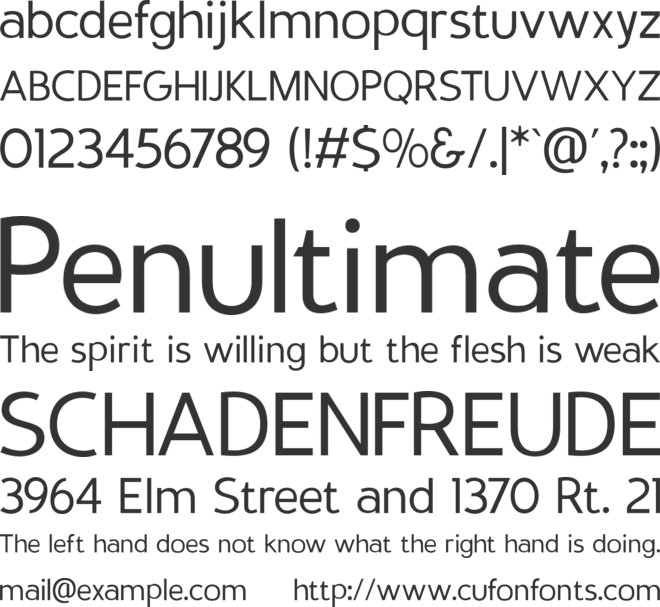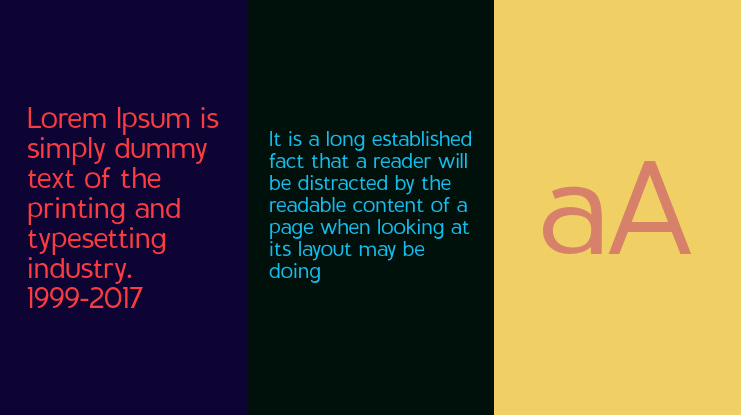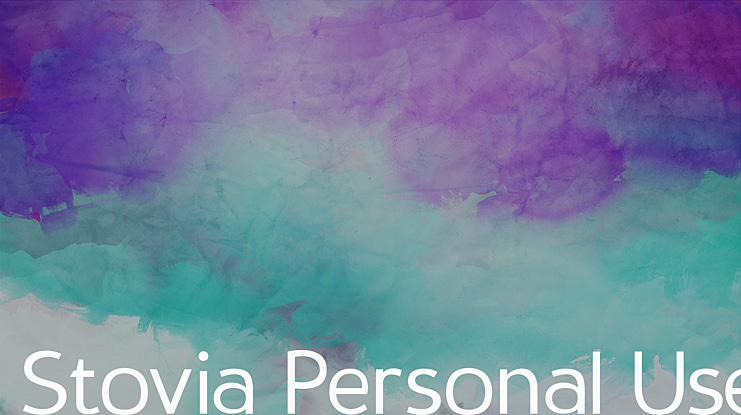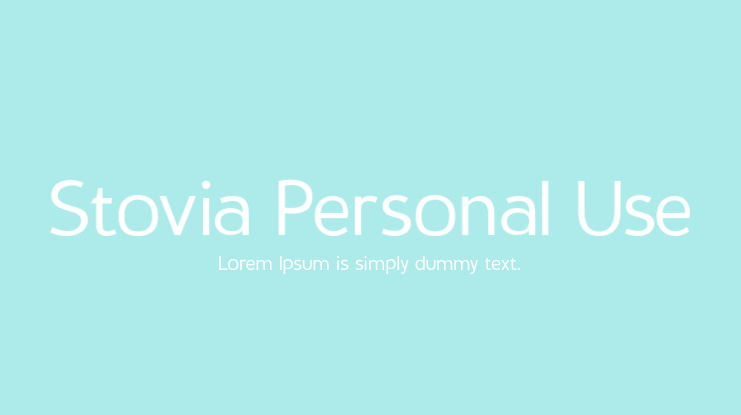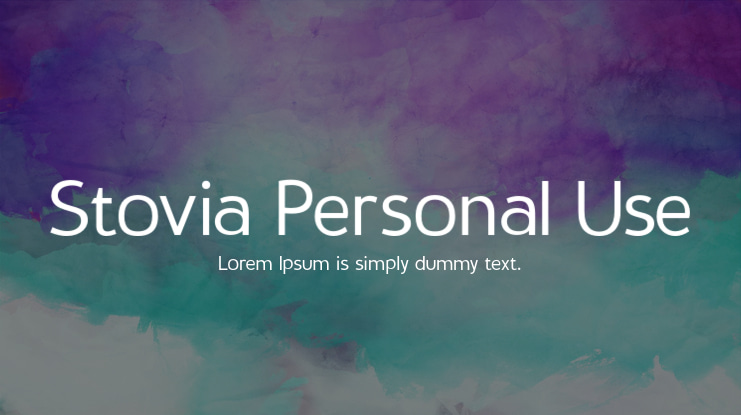
Stovia Personal Use Font Family
Stovia is a typeface with a modern sans serif style, has a clean, modern and elegant character. Suitable for text fonts, headings, logotypes, or even as display fonts. You can use Stovia for posters, invitations, labels, ui / ux designs, and so on. You are not allowed to change, modify or even resell this font, without permission from the author.